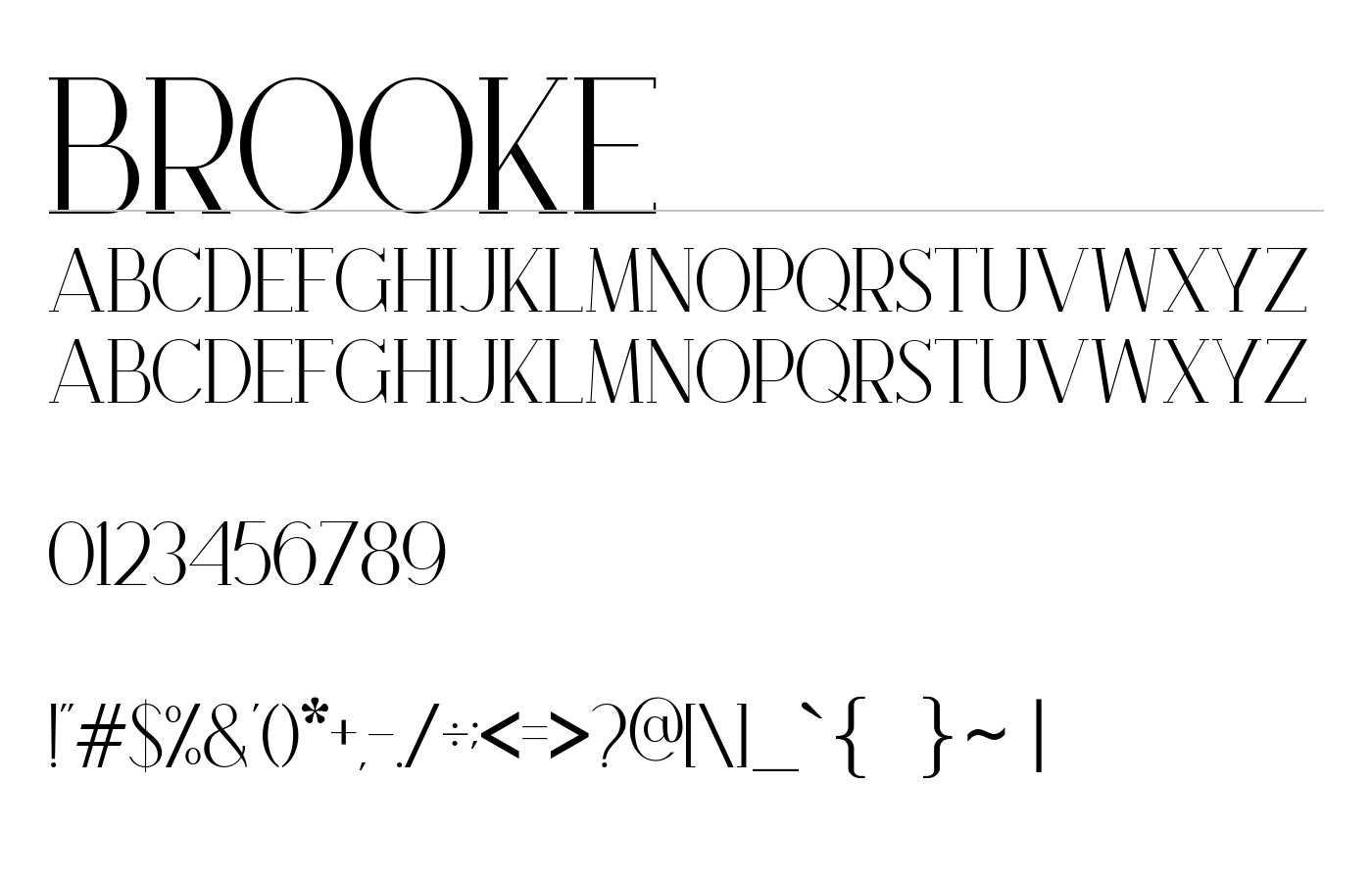
Brooke Font is an elegant and refined serif typeface featuring high contrast between thick and thin strokes, with sharp, delicate serifs that give it a sophisticated and modern appearance. Its tall, narrow letterforms and graceful details create a stylish, luxurious feel perfect for upscale branding, editorial headlines, and fashion-focused design where elegance and clarity are key. This font works especially well in contexts that require a chic, high-end look with a timeless, classic vibe.
Brooke Font